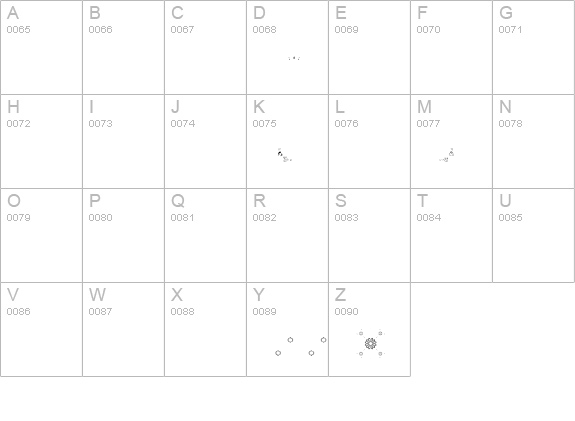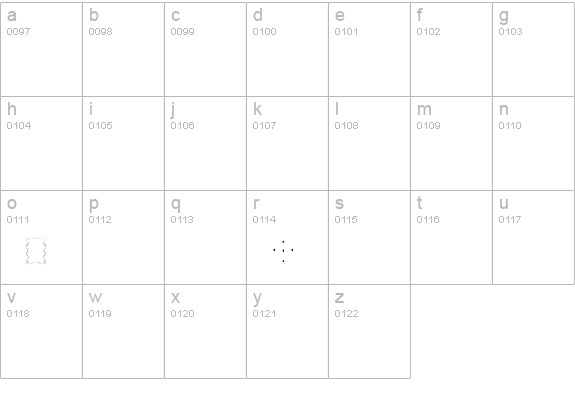
PFOrnmTreasures3-Layer7 font is a beautifully intricate and ornate display font that is sure to catch the eye. With seven layers of exquisite detailing, this font is perfect for adding a touch of elegance and sophistication to your designs. Whether you're working on invitations, posters, or other creative projects, PFOrnmTreasures3-Layer7 font will elevate your work to the next level. The best part? This stunning font is available for free download at FontsMarket.com. Now you can access this premium-quality font without breaking the bank. Don't miss out on the opportunity to enhance your designs with PFOrnmTreasures3-Layer7 font today!